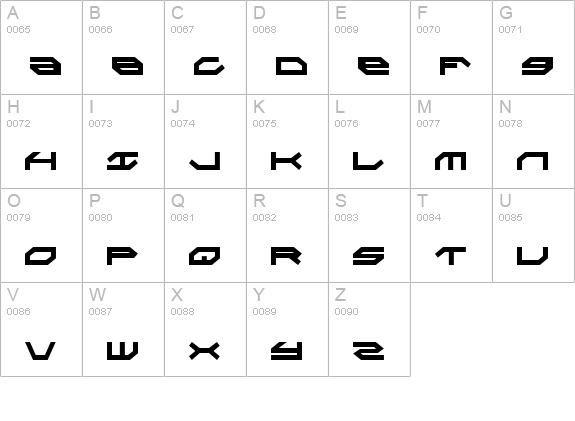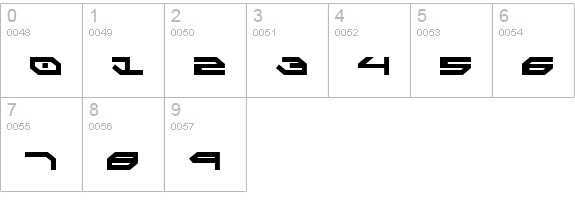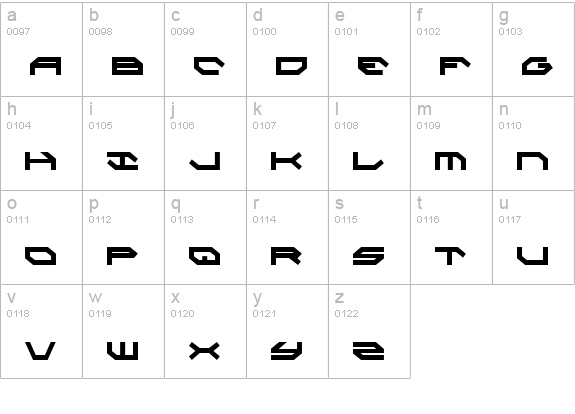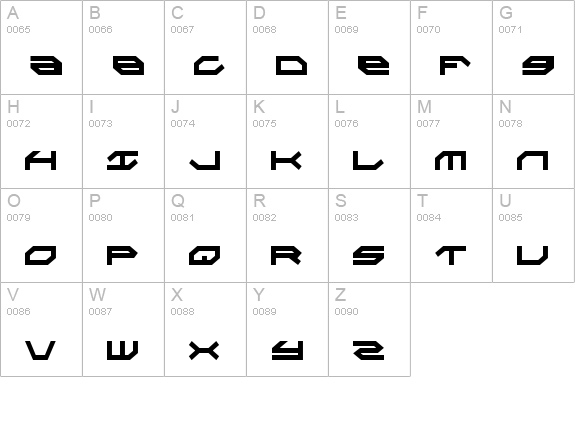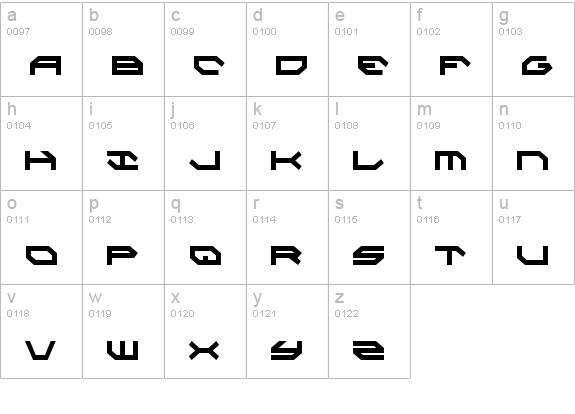
Taskforce Condensed is a distinctive, condensed-width variant in the Taskforce typeface family \xE2\x80\x94 well suited to design and typography projects.
Taskforce Condensed is a sleek and modern font that exudes confidence and professionalism. With its clean lines and sharp angles, this font is perfect for bold headings, eye-catching logos, and impactful designs. The condensed style adds a sense of sophistication and elegance to any project. Best of all, Taskforce Condensed is available for free download at FontsMarket.com. Don't miss out on adding this versatile and stylish font to your collection today!